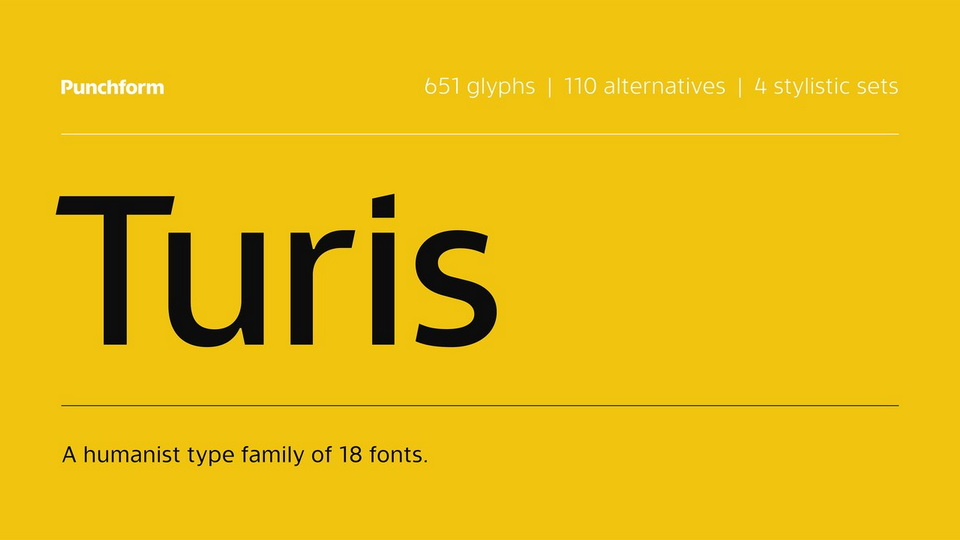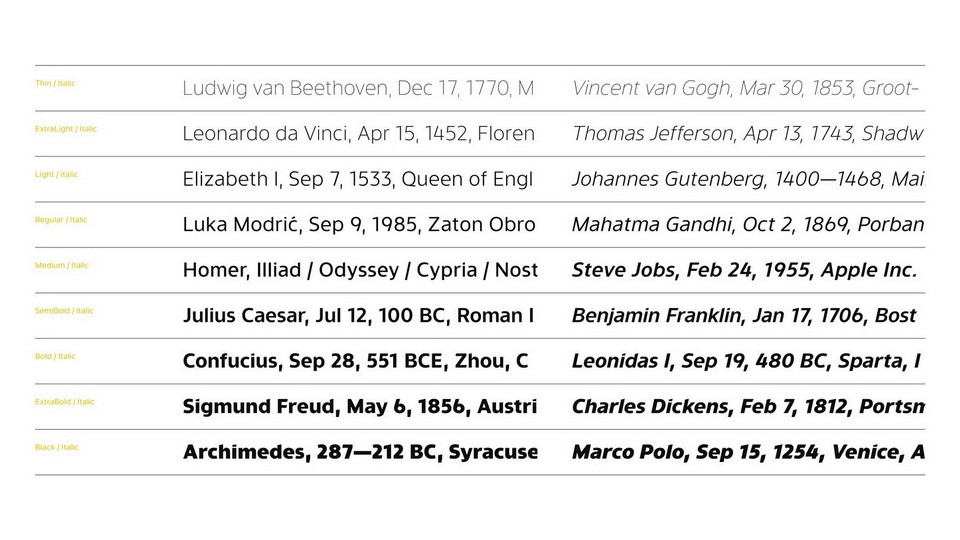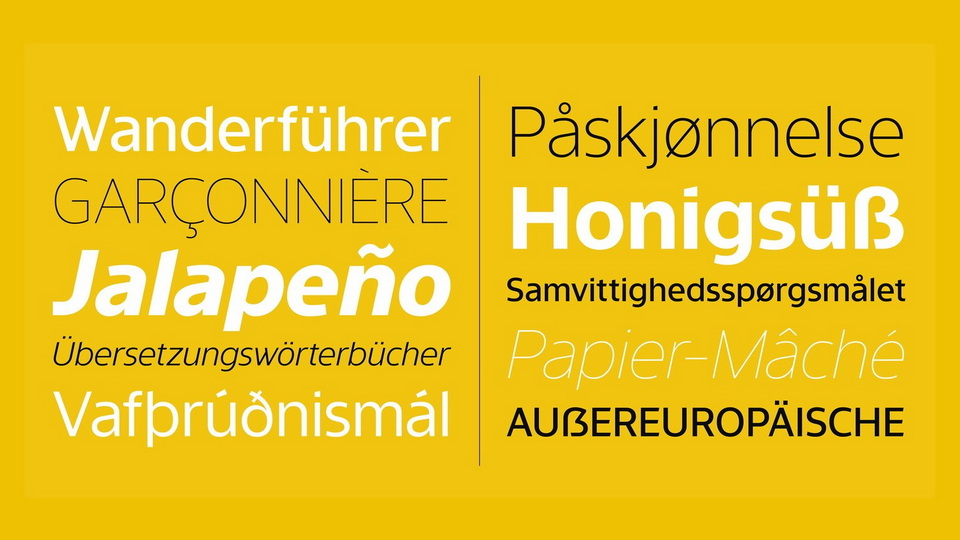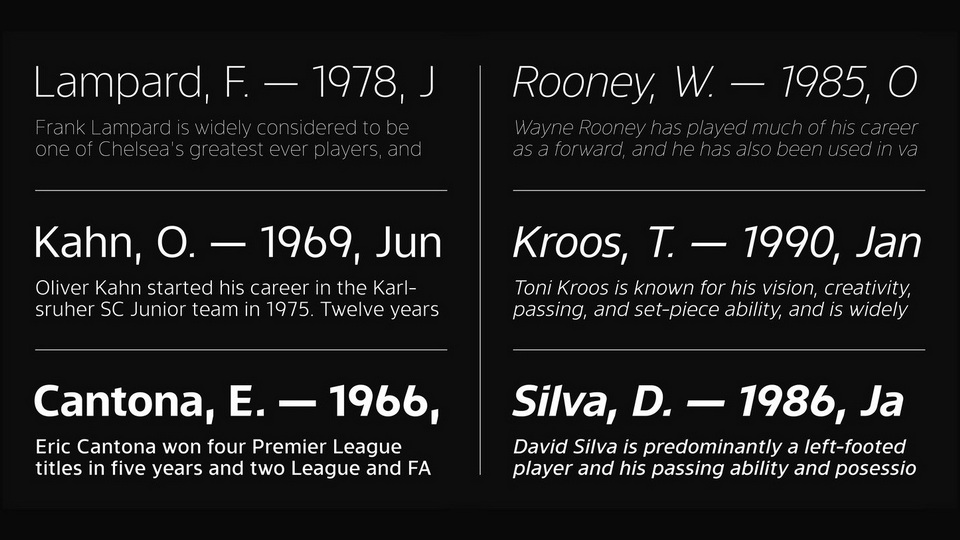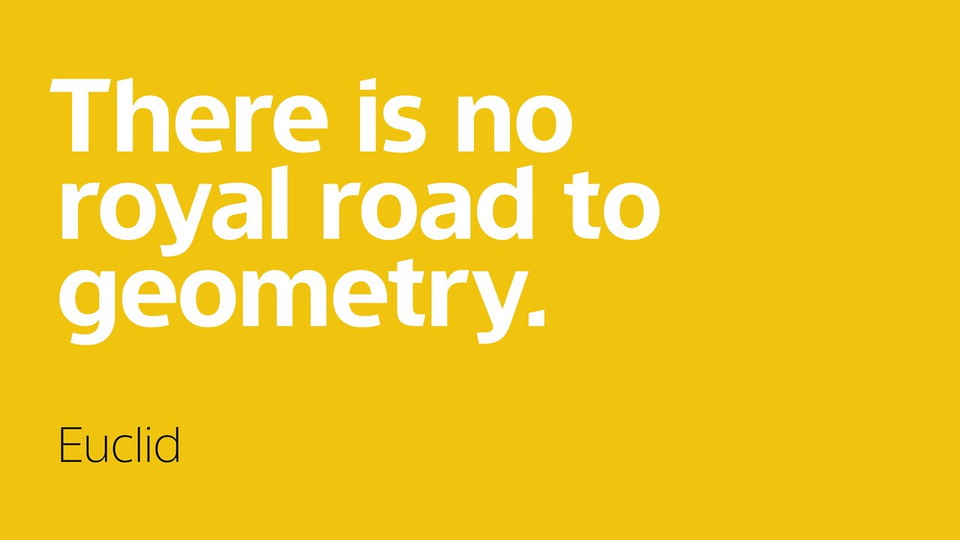
Turis is a modern humanist sans serif typeface.
The Light and ExtraBold weights are free of charge, so you can use them for both personal and commercial projects. The full family has 18 weights — 9 uprights and 9 italics — ranging from Thin to Black.
Turis allows graphic designers to create advanced typographical layouts by offering 110 alternative glyphs and 4 stylistic sets.